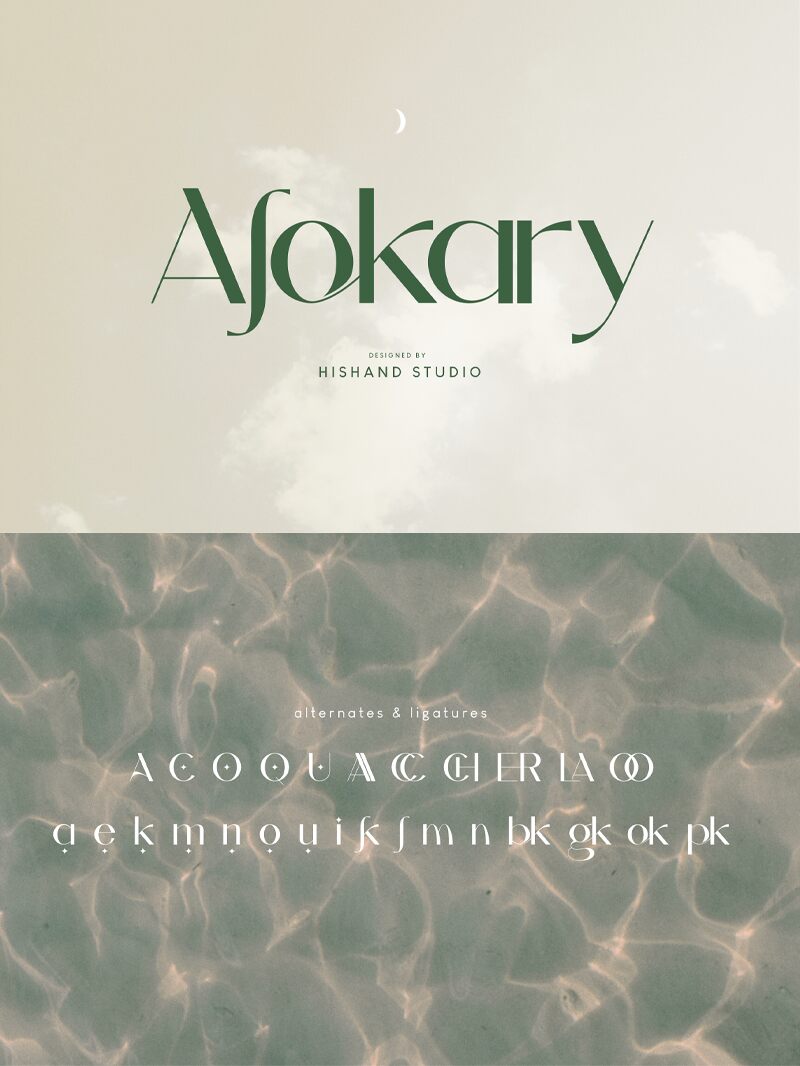
Alokary, crafted by Hishand Studio, is a captivating display font that exudes modernity. With its semi-light weight and semi-expanded width, Alokary strikes the perfect balance between elegance and readability.
Ideal for branding projects seeking a touch of sophistication, Alokary's clean lines and contemporary style make it a versatile choice for logos, packaging designs, and website headers. Whether you're creating an edgy fashion label or a sleek tech startup, Alokary will elevate your project with its distinctive charm and legibility.